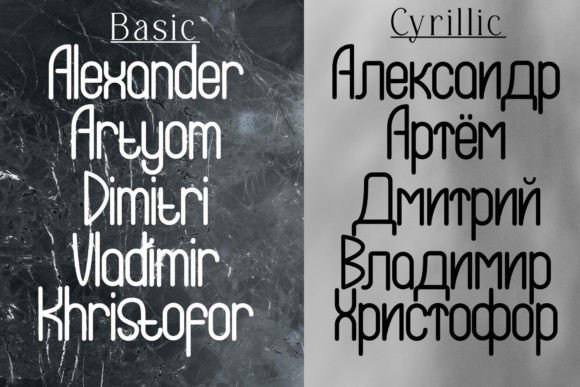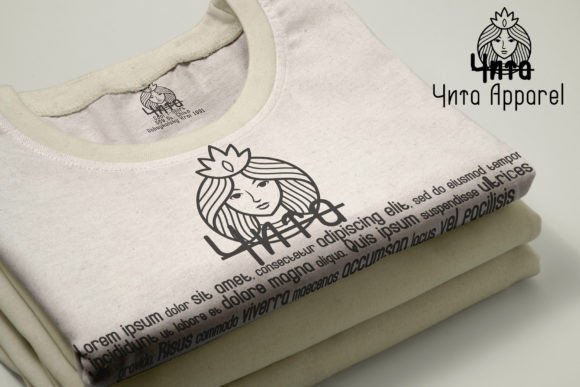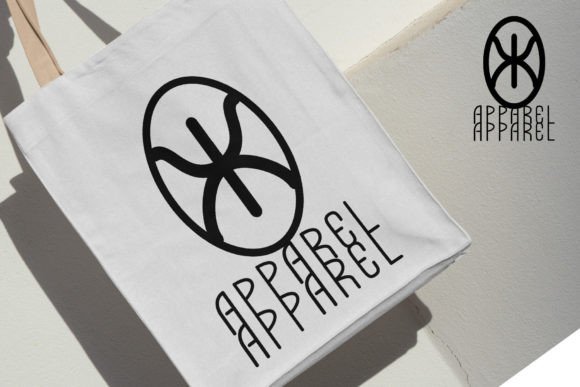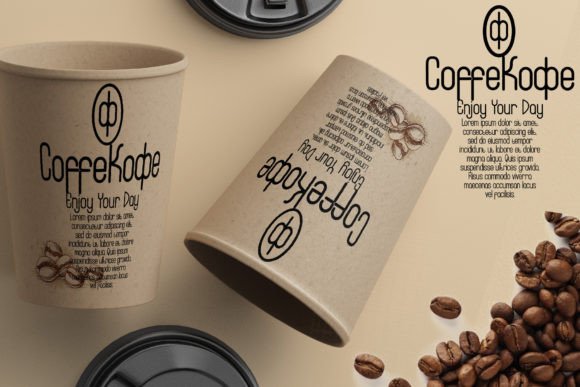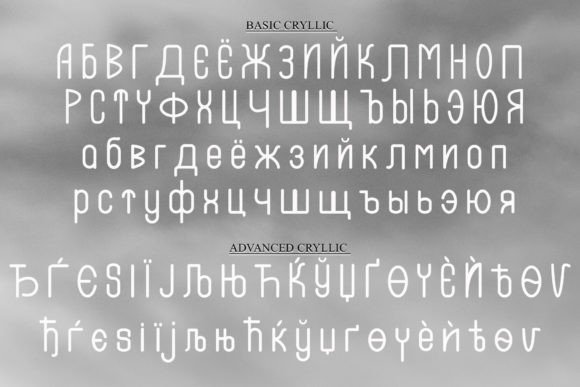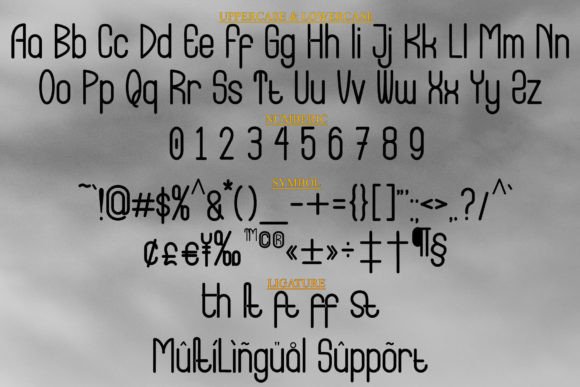
Introducing Adventure Font: Elevate Your Designs with a Touch of Elegance
Are you on the lookout for a font that can add a dash of sophistication and a pinch of nostalgia to your designs? Look no further than Adventure Font, a modern sans-serif font that embodies an elegant, condensed style. This versatile font is perfect for a wide range of creative projects, from vintage and retro designs to modern branding and packaging.
What Makes Adventure Font Stand Out?
Adventure Font is not just another font; it’s a design statement. Its modern sans-serif style, coupled with an elegant and condensed aesthetic, makes it uniquely versatile. Whether you’re working on a vintage-inspired poster, a sleek logo, or a stylish t-shirt design, Adventure Font brings a level of sophistication that’s hard to match.
The beauty of Adventure Font lies in its adaptability. It’s a font that can seamlessly transition from one design project to another, making it an invaluable asset for designers and crafters. Here are some of the many ways you can use Adventure Font:
- Vintage and Retro Designs: Give your designs a classic feel with Adventure Font’s elegant touch.
- Badges and Logos: Create memorable logos and badges that stand out with a sophisticated, condensed style.
- T-Shirts and Apparel: Elevate your fashion designs with a font that’s both stylish and legible.
- Posters and Flyers: Make your posters and flyers pop with a modern, yet nostalgic feel.
- Branding and Packaging: Use Adventure Font to create a cohesive and elegant brand image.
- Signs and Book Covers: Add a touch of class to your signs and book covers with this versatile font.
Why Choose Adventure Font?
In a world where design trends are constantly evolving, having a font that can keep up is crucial. Adventure Font is designed to meet the needs of modern designers and crafters who are looking for a stylish, yet versatile font. Here are a few reasons why Adventure Font should be your go-to choice:
- Unique Style: Adventure Font offers a unique blend of modernity and elegance, making your designs stand out.
- Versatility: Its adaptability means you can use it for a wide range of projects, from digital designs to print materials.
- Easy to Read: Despite its condensed style, Adventure Font remains highly legible, ensuring your message is always clear.
How to Use Adventure Font in Your Designs
Tips for Maximizing Impact
To truly leverage the power of Adventure Font, consider the following design tips:
- Pair it with Complementary Fonts: Use Adventure Font as a headline font and pair it with a more straightforward font for body text.
- Play with Colors: Experiment with different color schemes to find the perfect match for your design.
- Utilize White Space: Don’t be afraid to use white space to let Adventure Font breathe and make your designs pop.
Adventure Font is more than just a font; it’s a design companion that can elevate your projects to new heights. Its elegant, condensed style makes it perfect for a myriad of design applications, from vintage and retro designs to modern branding and packaging. Whether you’re a professional designer or a crafting enthusiast, Adventure Font is a versatile tool that can help you achieve your creative goals. So why wait? Dive into the world of Adventure Font today and discover a new level of design sophistication.